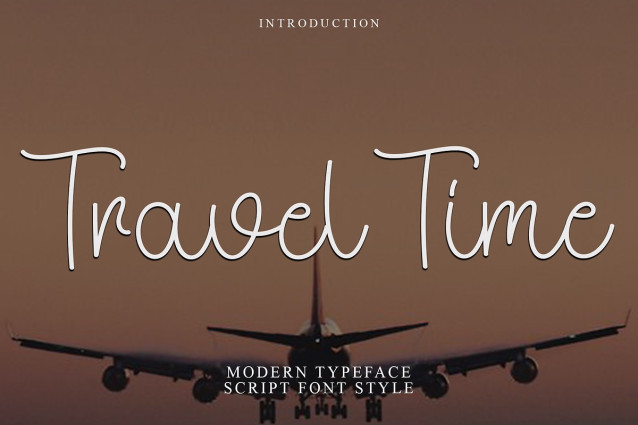
Travel Time Handwriting Font
Travel Time Handwriting Font is a beautiful and eye-catching font designed with a soft, unique touch. Its distinctive strokes give it a special character, making it meaningful and versatile for future use. With various characters, it’s perfect for design projects, crafts, and other creative works.